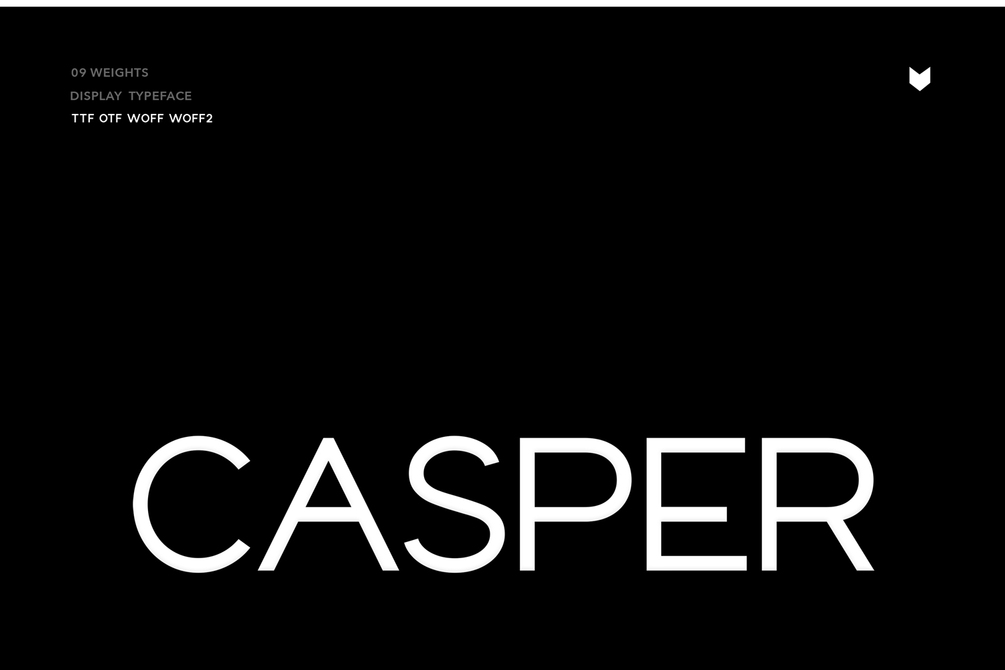
Casper Typeface
Casper Typeface is an elegant and bold font. It's a very versatile font that works great in large and small sizes. Casper Font would perfect for branding, logos, headlines, Captions and display boards There is simply as a stylish text overlay to any background image. Strong capitals and a smooth, open lowercase are effective in a variety of applications. It's shown a clean, minimalist, warmth, quirky, yet still purposed to be versatile and easy to read.